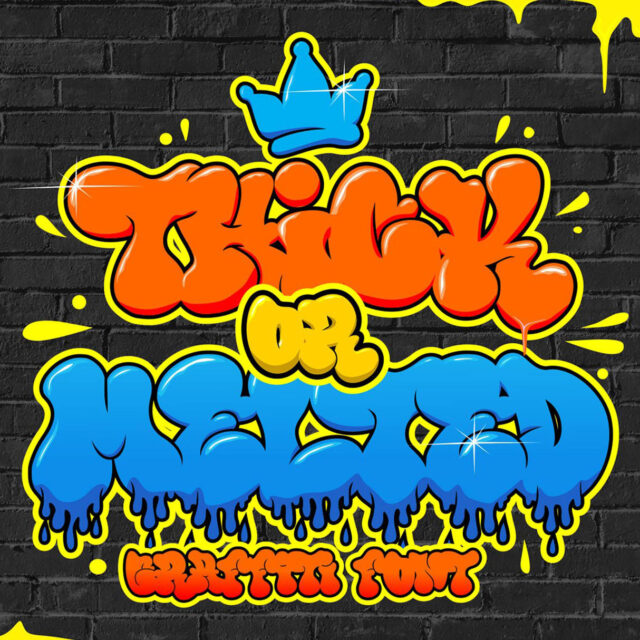
About Thick Or Melted
“Thick Or Melted” is a graffiti font with a bubble-like shape. It comes in two styles: one without “drip” (the appearance of dripping liquid or streaks) and one with “drip.” The style without “drip” often provides a cleaner and simpler look to the letters, while the style with “drip” adds a more complex artistic element and can create a more expressive effect in your designs. “Thick Or Melted” can be used in various types of projects, depending on the effect and aesthetics you want to achieve in your design.